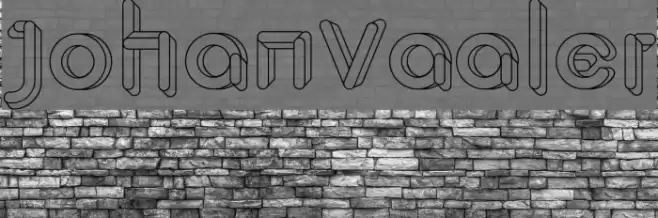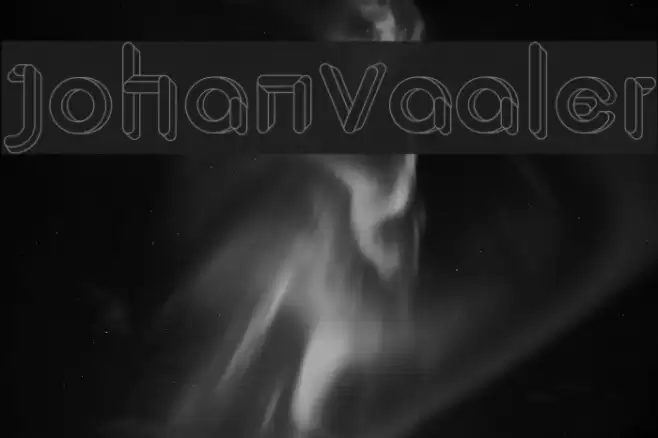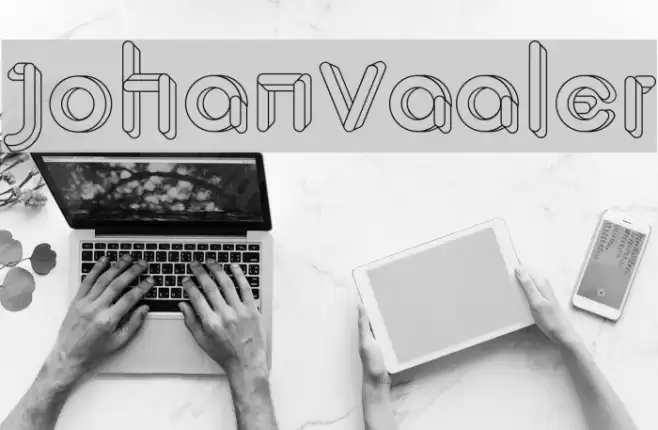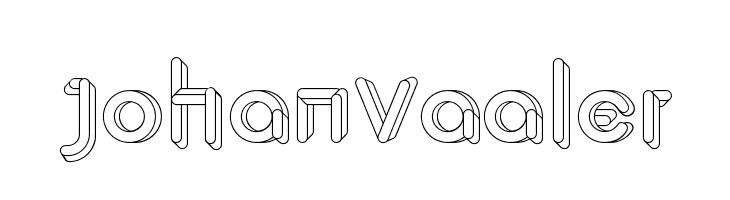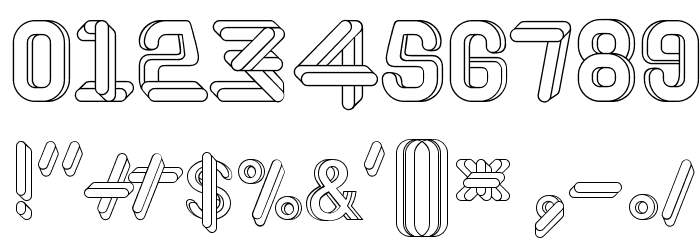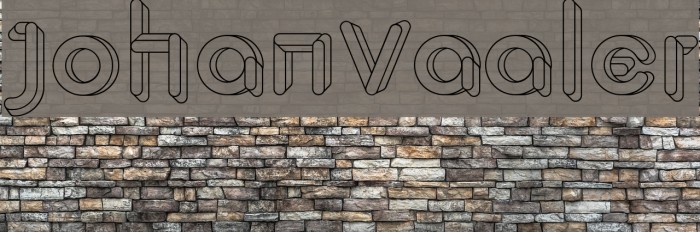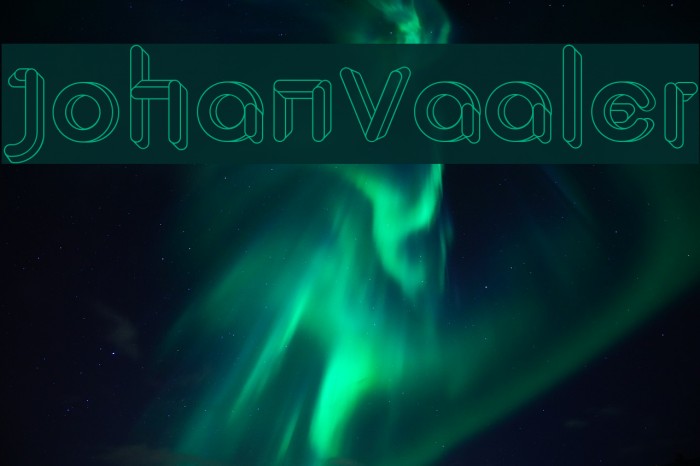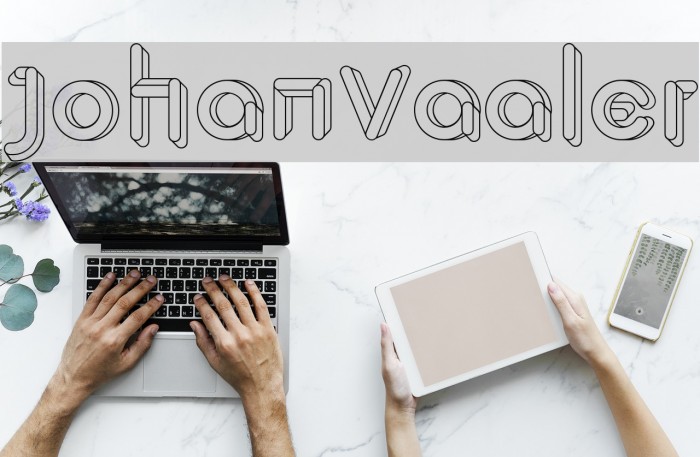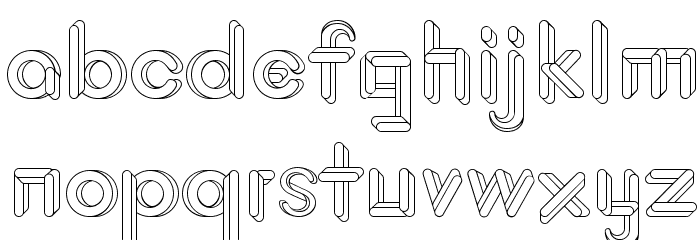
JohanVaaler Font
JohanVaaler Description
This font features a unique, three-dimensional outline style that gives each character a sense of depth and structure. The letters are constructed with parallel lines that create a layered effect, making them stand out with a bold and modern appearance. The geometric shapes are consistent throughout the alphabet, numbers, and special characters, providing a cohesive look. The font's design is both playful and sophisticated, suitable for creative projects that require a distinctive and eye-catching typeface.
A 3D outline font with geometric, layered characters from Uncategorized fonts.
- Proposed Projects: Ideal for branding, posters, and modern graphic design projects where a bold statement is needed.